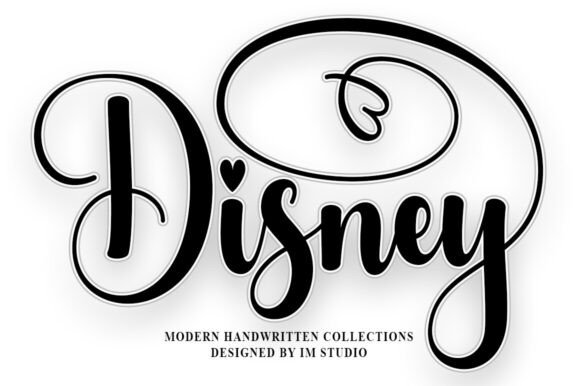
If you are searching for the authentic Disney Font style for your creative projects, you’re in the right place. Disney typography has a unique magic—its curves, lettering flow, and playful personality instantly remind us of childhood movies, fairytales, and animated classics. As a font expert, I can confidently say that Disney-inspired fonts are some of the most downloaded typefaces in the world because they strike the perfect balance between nostalgia and creativity.
What Is the Disney Font?
The official Disney logotype used in the Walt Disney branding is based on the signature of Walt Disney himself. While Disney has never released an official public font for the logo, talented typography designers have created font styles inspired by it—fonts that look and feel like the iconic Disney handwriting.
These fonts usually feature:
Smooth, playful curves
Whimsical loops and swirls
A handwritten, magical feel
Friendly and animated letter shapes
A nostalgic touch inspired by Disney movies
Because the actual Disney logo is trademarked, the downloadable “Disney Fonts” available online are fan-made recreations designed for personal and creative use.
Why People Love Using Disney Fonts
Disney fonts are popular across designers, YouTubers, teachers, crafters, and fans because they bring a sense of imagination and childhood joy.
1. Nostalgic Visual Appeal
The fonts immediately remind people of:
Disney movies
Mickey Mouse
Princess stories
Fairytales
Childhood memories
This emotional connection makes Disney-style fonts extremely engaging.
2. Perfect for Kids and Family Projects
Whether you’re designing something for a child’s birthday or a classroom project, Disney fonts instantly elevate the fun factor.
3. Wide Creative Flexibility
Disney Fonts can be used in digital and print mediums:
Crafts
Invitations
Posters
Logos
YouTube thumbnails
Kids apparel
Scrapbooks
Social media
Classroom worksheets
4. Recognizable Worldwide
Disney typography is globally iconic. Even someone who has never seen the font before will still recognize its resemblance to Disney style.
Popular Disney Font Styles Available Online
There are many fan-made versions inspired by the Disney logotype. Some of the most popular options include:
1. Waltograph Font
One of the closest recreations of the Disney logo.
Features playful handwriting and flowing strokes.
2. New Walt Disney Font
A cleaner, slightly modernized version that works well for banners and posters.
3. Disney Script Font
More stylized with elegant loops—perfect for names and invitations.
4. Mickey Mouse Font
A chunky, fun font inspired by Mickey branding.
5. Disney Park Font
Inspired by signage used at Disney theme parks.
These fonts are not official, but they beautifully capture the Disney aesthetic.
Where Can You Use Disney Fonts?
Disney-style fonts are extremely versatile. Here are the best ways designers use them:
1. Birthday Invitations
Children’s birthday invites look magical with Disney-style handwritten text.
Crafters use Disney fonts to design:
Vinyl cutouts
Shirts
Mugs
Wall art
3. YouTube Content
Disney-like fonts work great for:
Thumbnails
Titles
Branding
Kids channels
4. Classroom Decorations
Teachers use them for posters, labels, worksheets, and name tags.
5. Scrapbooking
Disney fonts add charm to scrapbooks, memory books, and photo albums.
6. Logos and Branding
For non-commercial or personal themes, Disney-style fonts work beautifully in branding for kids’ events or hobby projects.
Disney Font Features & Design Style
Disney Fonts typically include these design elements:
✔ Whimsical Curves
The signature curvature makes letters feel friendly and magical.
✔ Energetic Strokes
Perfect for animated or playful themes.
✔ Handwritten Personality
Disney Fonts are not just typefaces—they are a storytelling tool.
The Disney Font remains one of the most magical and iconic typefaces in the creative world. Its nostalgic charm, smooth curves, and animated style make it perfect for personal projects, kids’ themes, crafting, scrapbooking, and more.